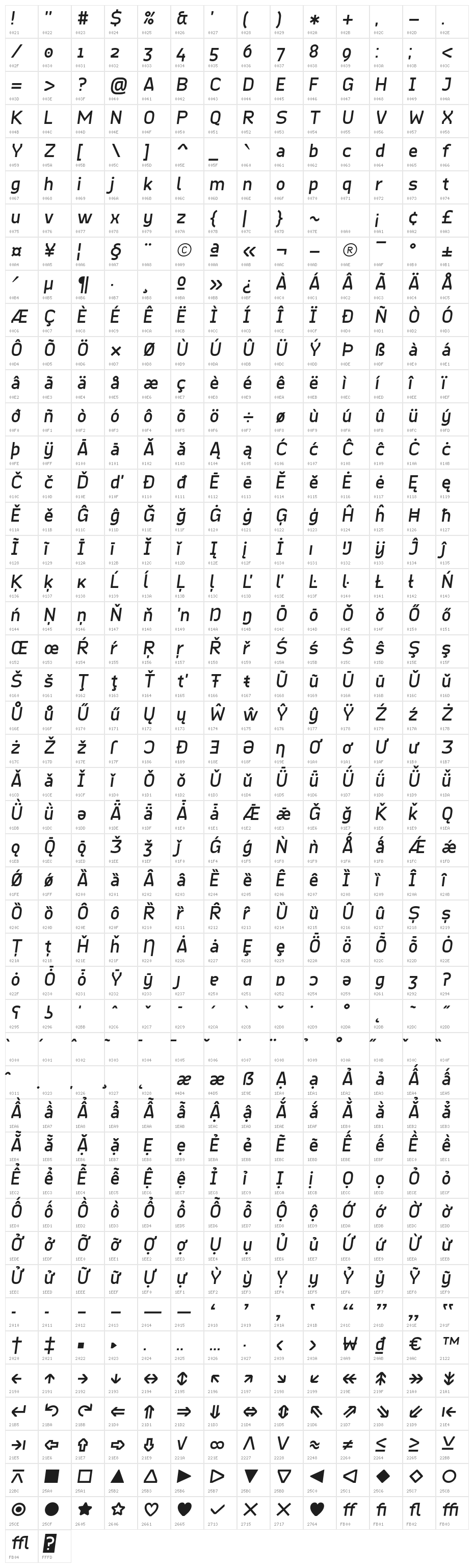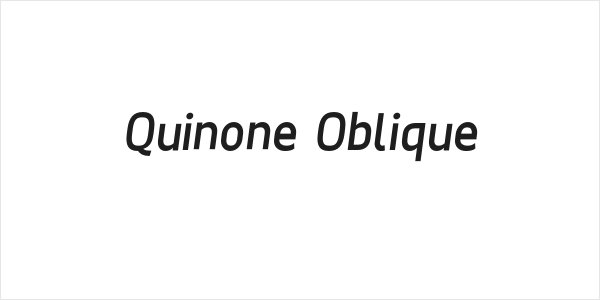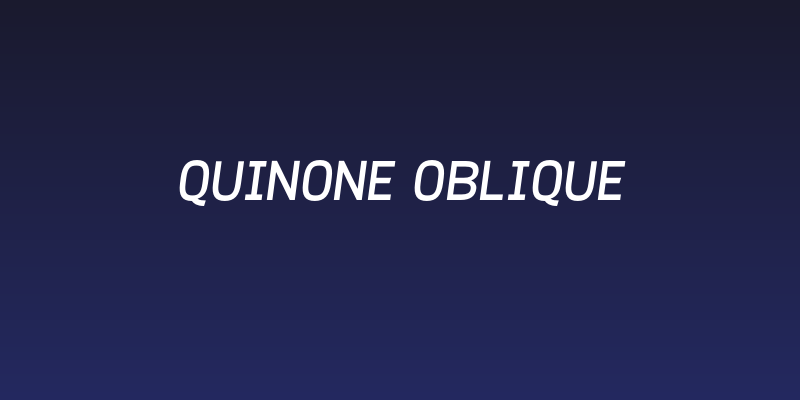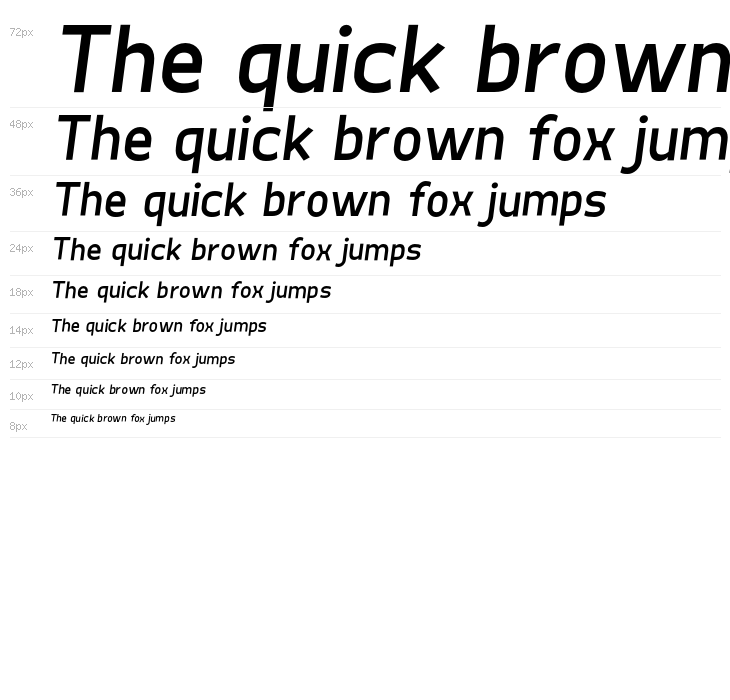
Quinone Oblique Font
Quinone Oblique Description
This font features a sleek, modern design with an oblique style that adds a dynamic and forward-leaning appearance. The characters are slightly slanted, giving a sense of motion and energy. The sans-serif structure ensures clean lines and a minimalist aesthetic, making it versatile for various design applications. The font maintains a consistent stroke width, contributing to its uniform and polished look. Its geometric shapes and clear legibility make it suitable for both digital and print media. The spacing between characters is balanced, providing readability without appearing crowded.
| Proposed Projects | Ideal for branding, advertising, digital interfaces, and editorial design. |